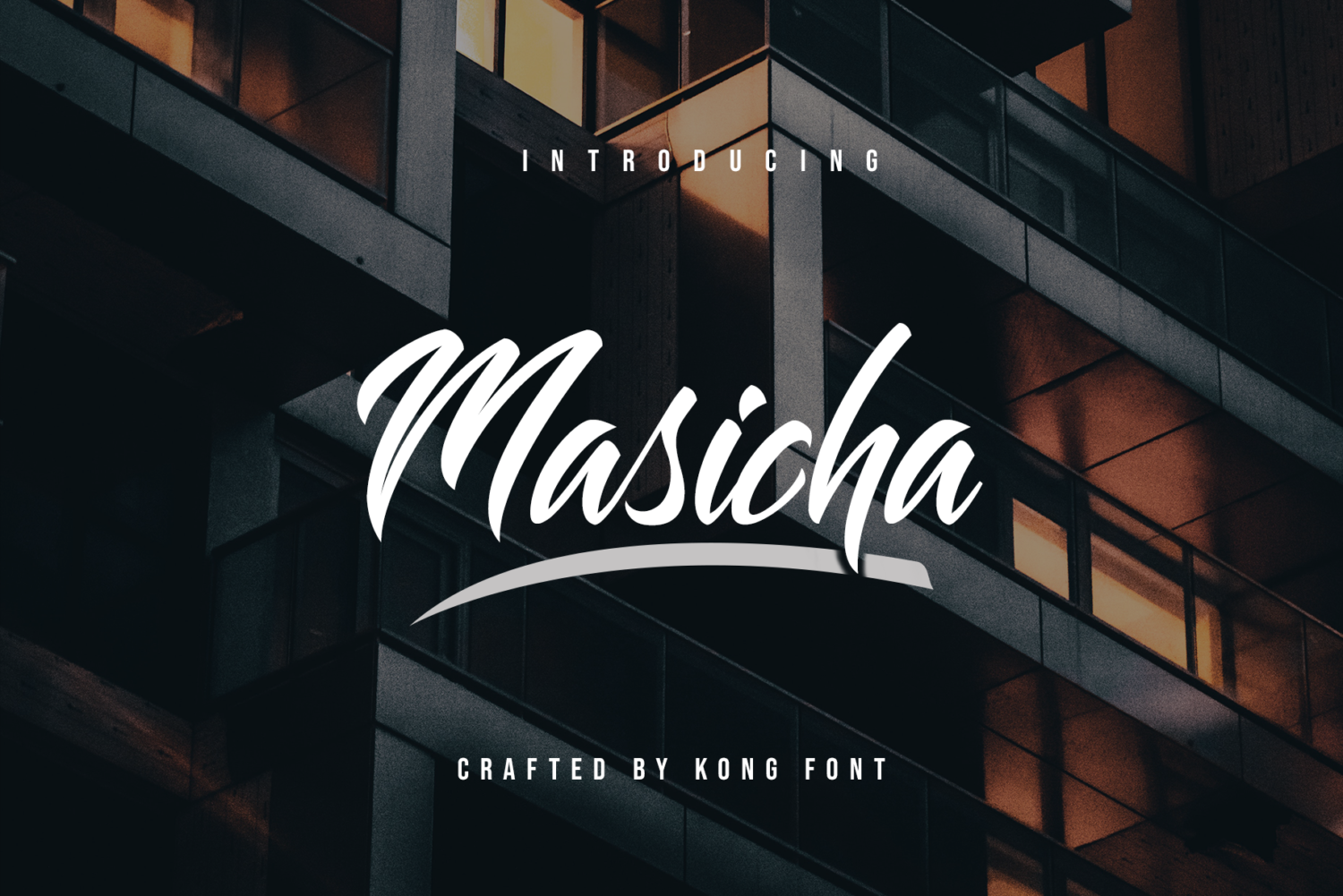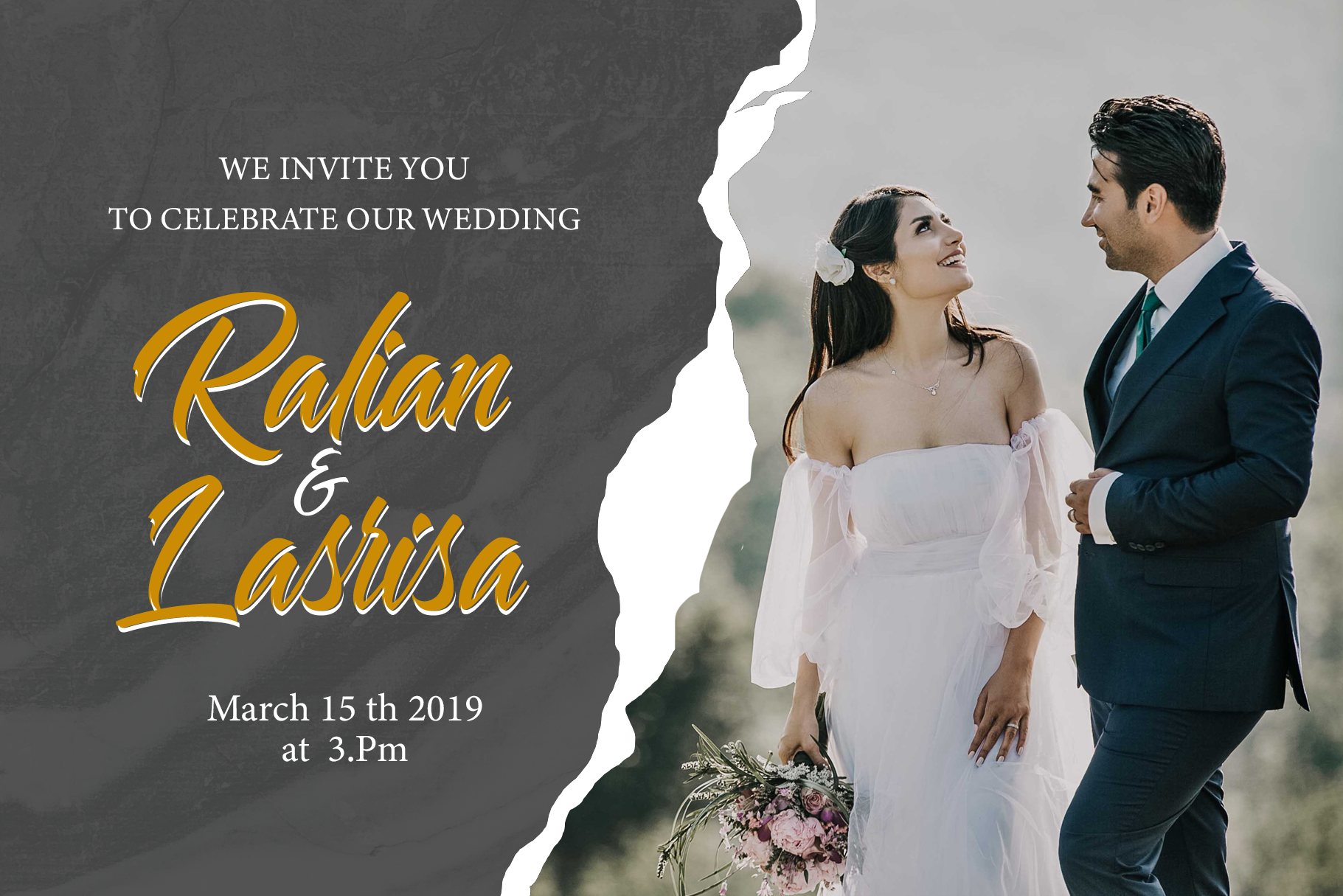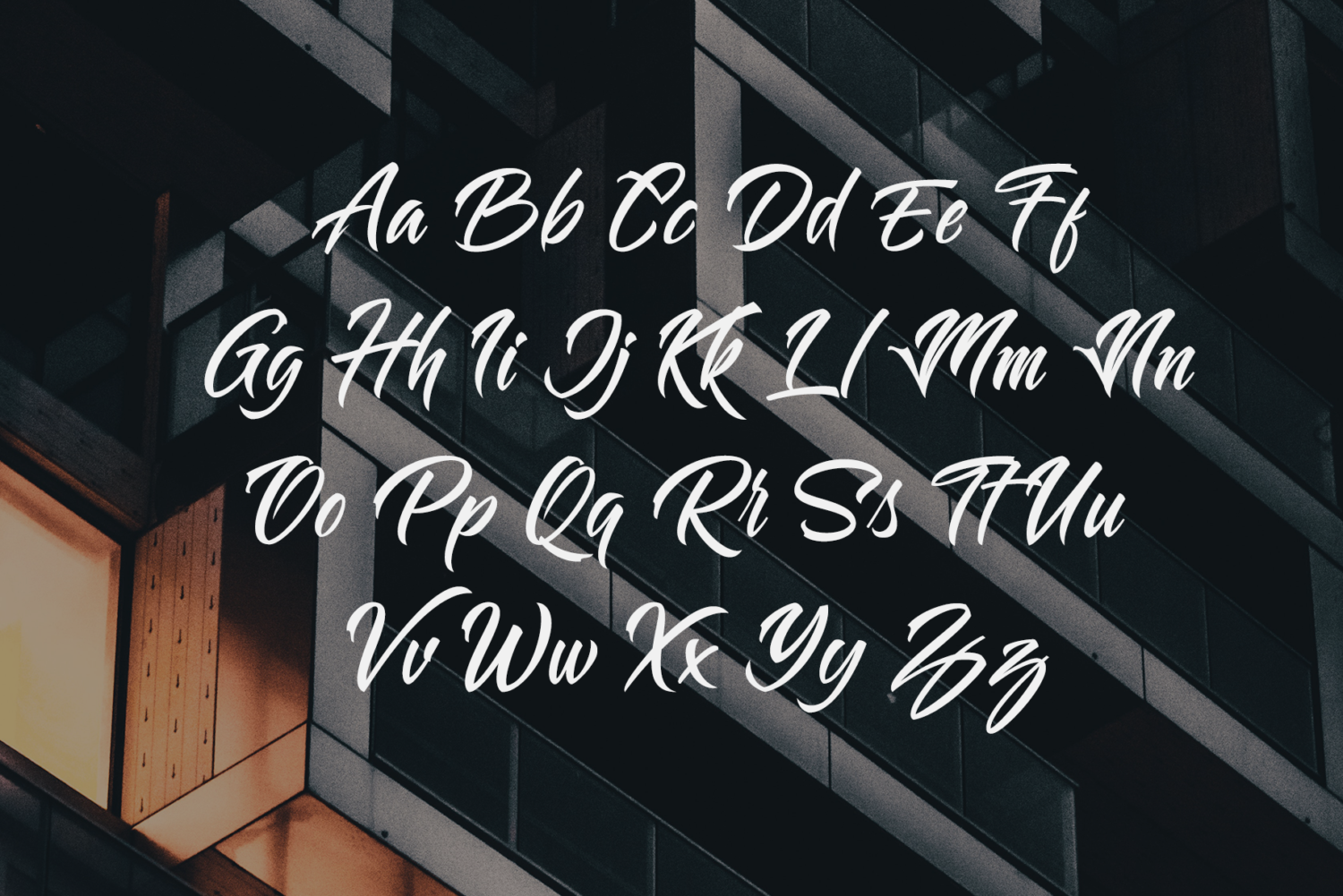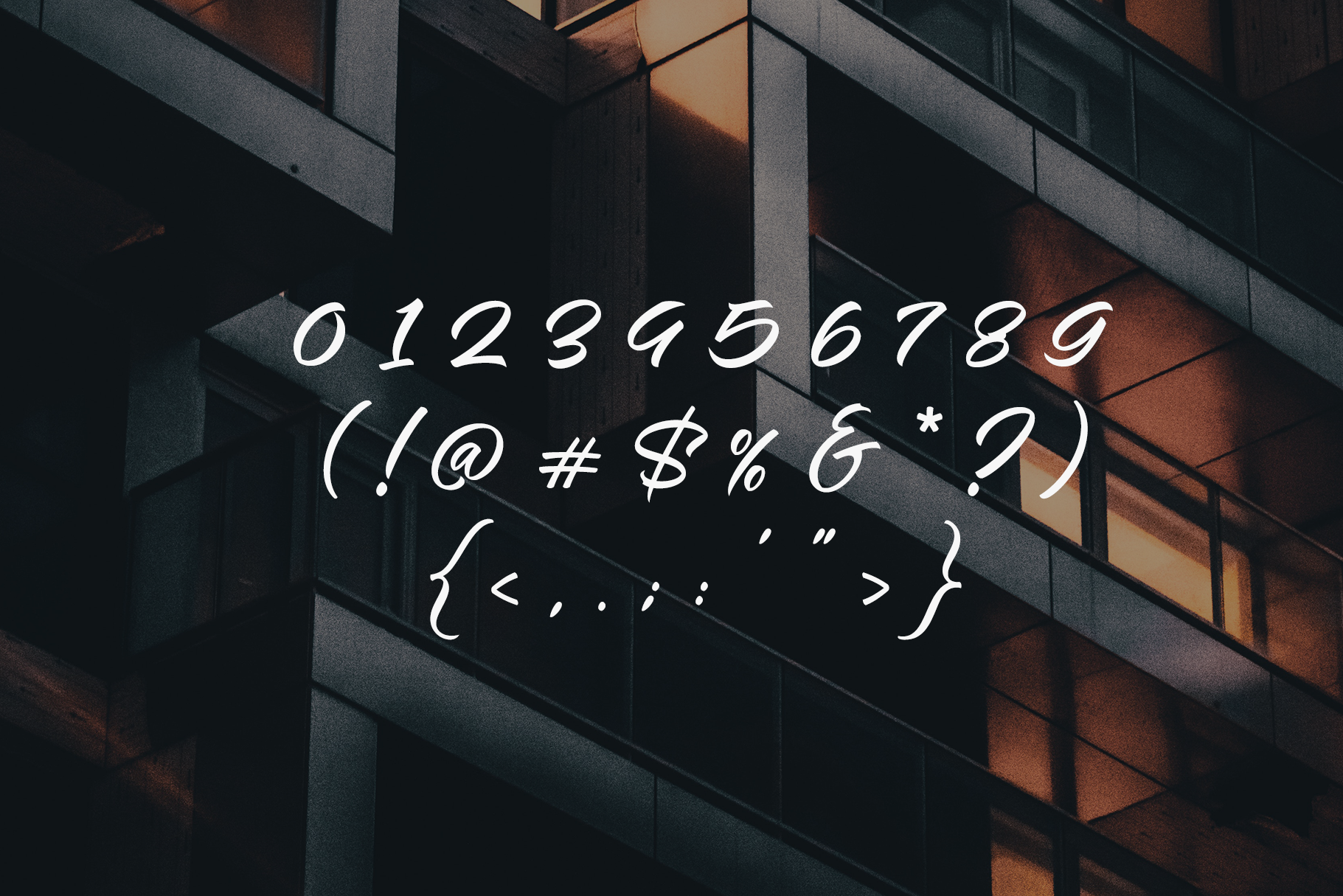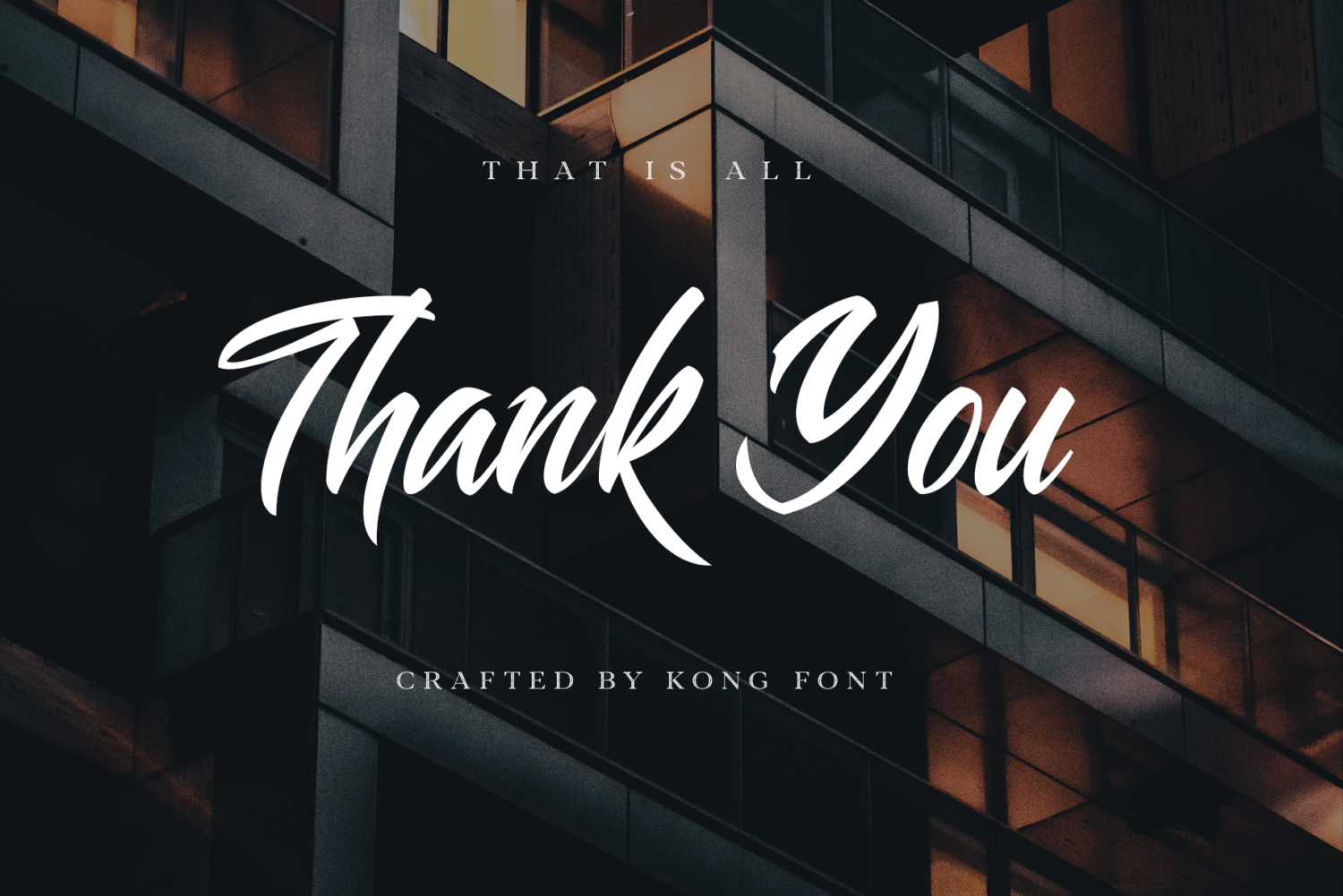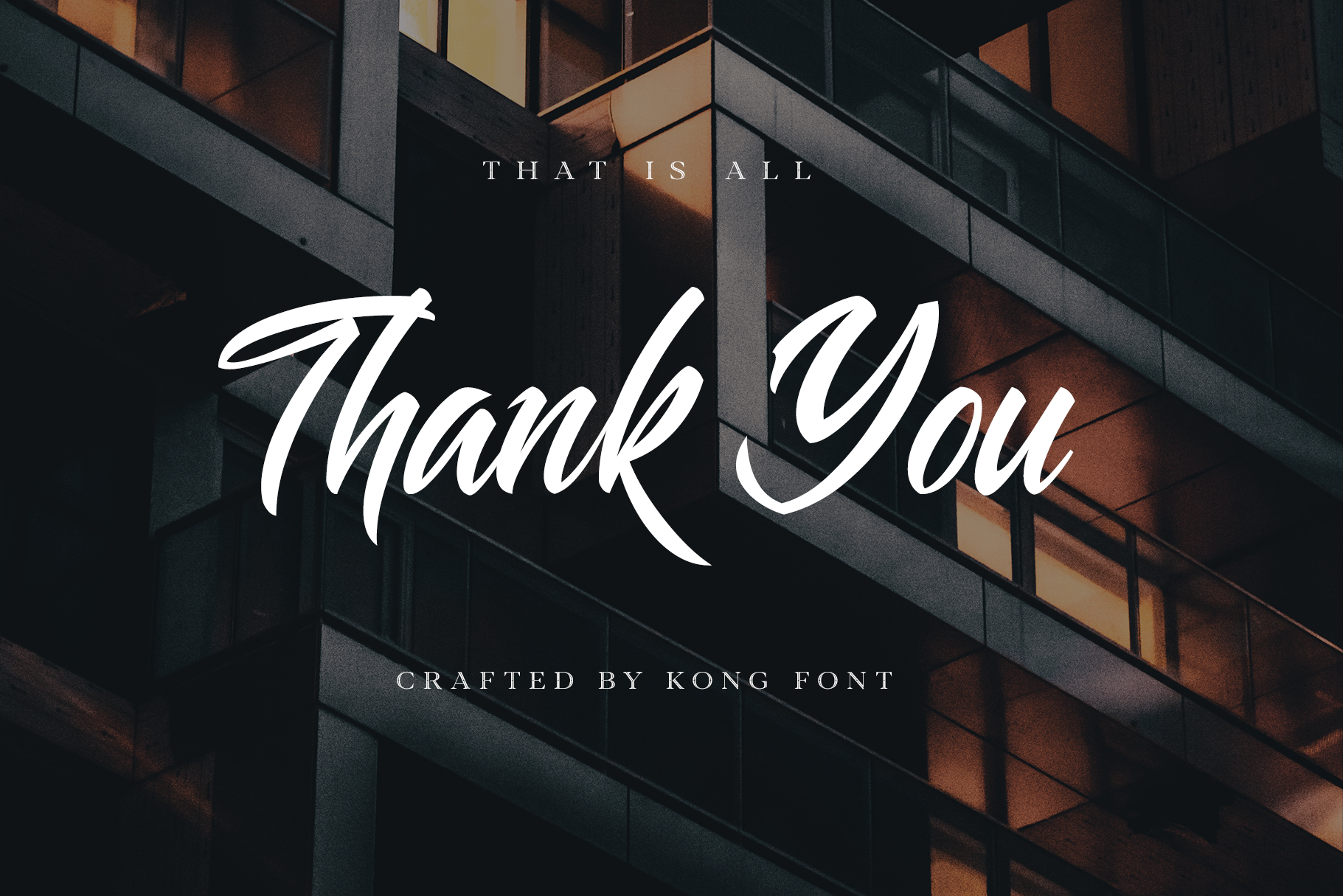
Masicha Handwritten Free Font
Introducing our Masicha Handwritten Free Font, very suitable to make an adorable invitation for a wedding, birthday, special day, and also perfect for your other project branding. This free typeface was designed by talented Kong Font. If you like it don’t forget to check out the full version.